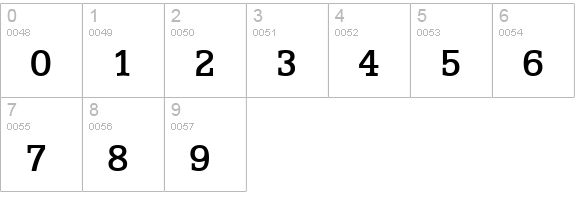
Eggo Bold Font Details
Eggo Bold is a strong, high-contrast variant in the Eggo typeface family \xE2\x80\x94 well suited to headlines, attention-grabbing titles, and strong calls-to-action.
Introducing Eggo Bold, a striking and versatile font that demands attention with its bold and powerful presence. With its sleek and modern design, Eggo Bold is perfect for making a statement in any project or design. This font is not only visually appealing but also incredibly easy to read, making it ideal for headlines, titles, and branding materials. Its clean lines and strong letterforms give it a sense of confidence and authority, ensuring that your message will be delivered with impact. One of the best things about Eggo Bold is that it is freely available to download at FontsMarket.com. This means that you can bring this stunning font into your projects without any cost or hassle. Whether you are a professional designer or just starting out, Eggo Bold is a valuable addition to your font library. With its wide range of characters and extensive language support, Eggo Bold offers versatility and adaptability for a variety of design projects. From posters and advertisements to logos and packaging, this font will elevate your creations to the next level. Don't miss out on the opportunity to enhance your designs with the bold and captivating Eggo Bold font. Download it for free today at FontsMarket.com and unleash your creativity with this exceptional typeface.